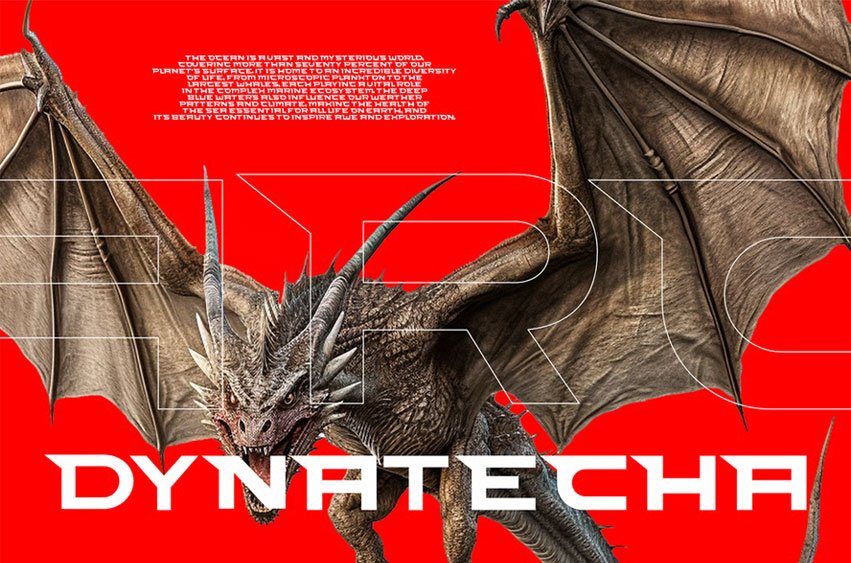
Dynatecha Font Forged for players and creators, this sans breathes fire through bold geometry.
Every stroke carries the rhythm of battle and speed, built for dynamic logos, HUDs, and cinematic moments. It’s not just type—it’s motion in still form.